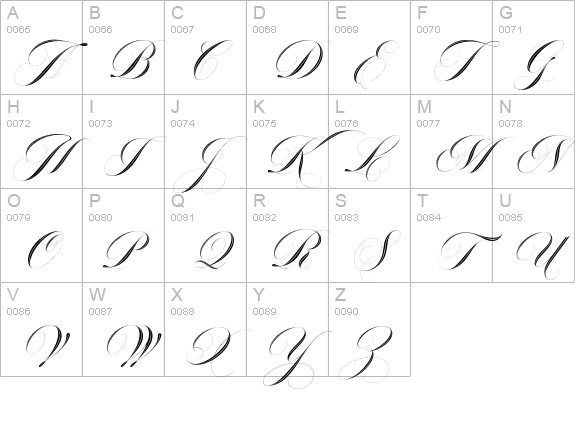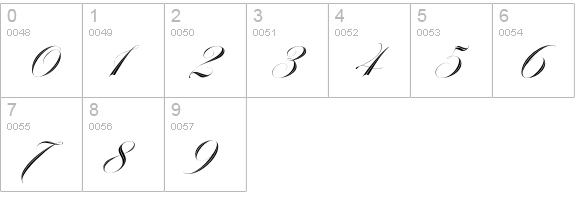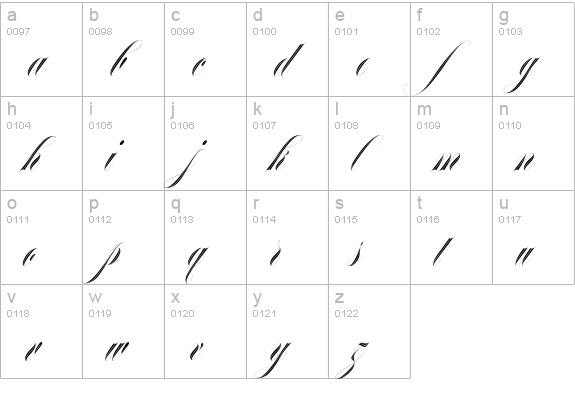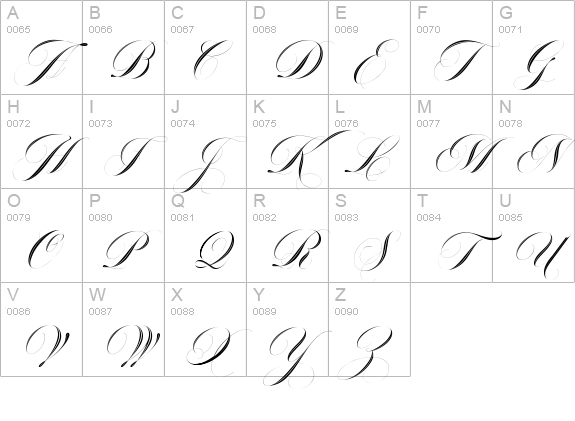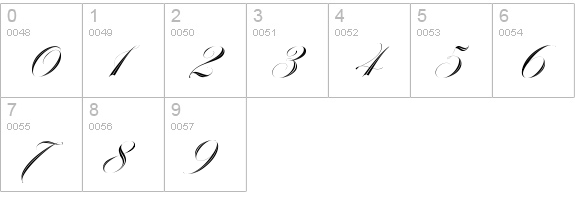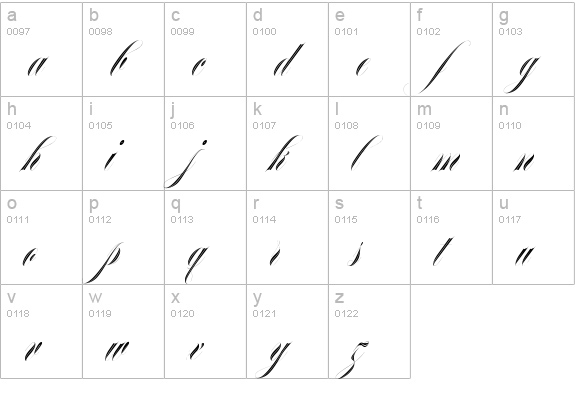
Introducing Erotica Inline Pro font, a seductive and alluring typeface that exudes sophistication and elegance. This font is perfect for creating captivating designs that demand attention and make a bold statement. With its intricate details and graceful curves, Erotica Inline Pro adds a touch of sensuality to any project, whether it's for a luxury brand, a fashion magazine, or a romantic invitation. The best part? Erotica Inline Pro font is completely free to download at FontsMarket.com. Now you can add a touch of glamour and allure to your designs without breaking the bank. Don't miss out on this exquisite font - download it today and let your creativity run wild with Erotica Inline Pro!